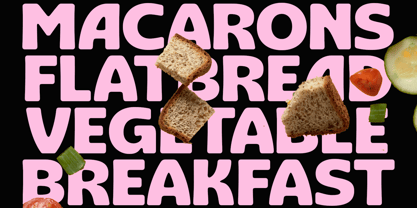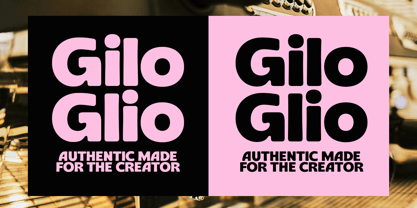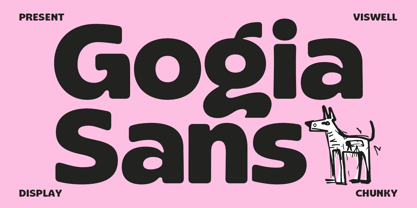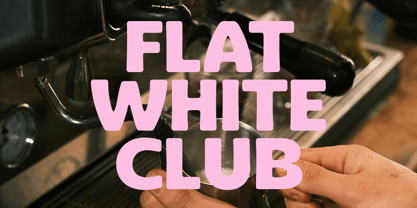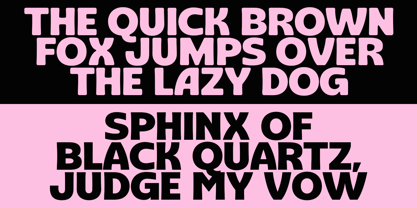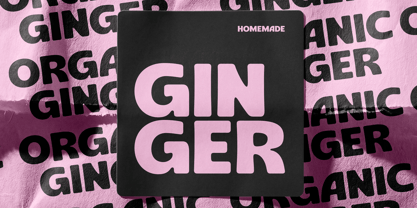
Gogia
by Viswell
The Gogia Font Family was designed by Najril Ilham Amrullah and published by Viswell. Gogia contains 2 styles and family package options. More about this family
Gogia is a chunky sans serif display font that exudes a bold, playful personality, featuring two distinct styles: Regular and Soft. The Regular style offers a strong and punchy appearance, while the Soft style introduces smoother, friendlier curves for a more relaxed aesthetic. This versatile font is perfect for a variety of applications, including posters, branding, packaging, logos, social media graphics, headlines, and engaging editorial designs. Designed to stand out without taking itself too seriously, Gogia adds a fun and modern character to your projects. You can mix the two styles for striking contrast or select the one that best matches your mood. Embrace Gogia to give your next design a bold, playful voice.
Designers: Najril Ilham Amrullah
Foundry: Viswell